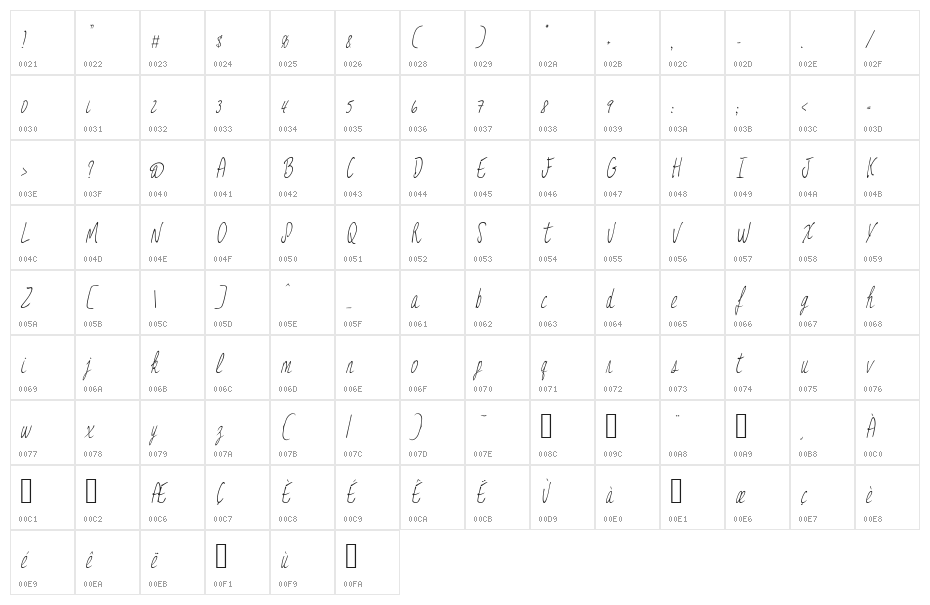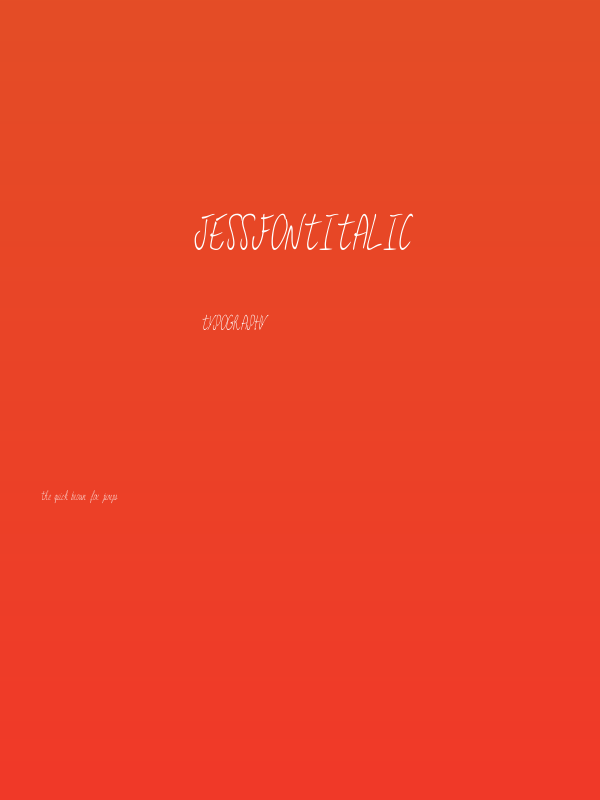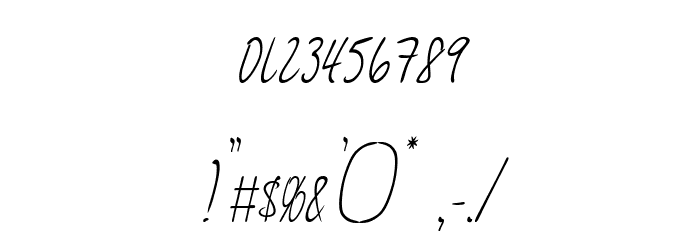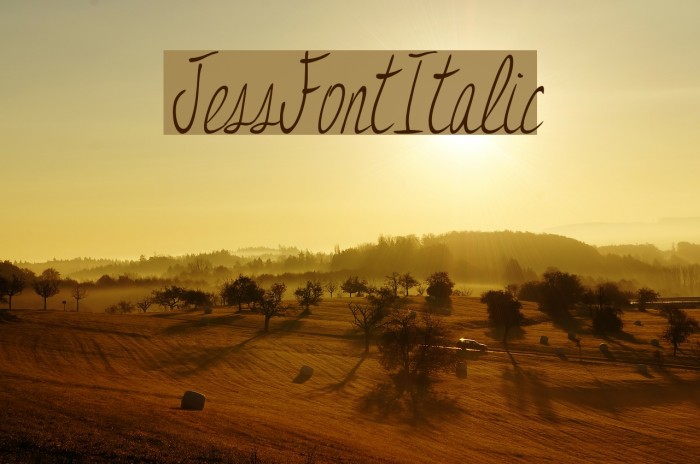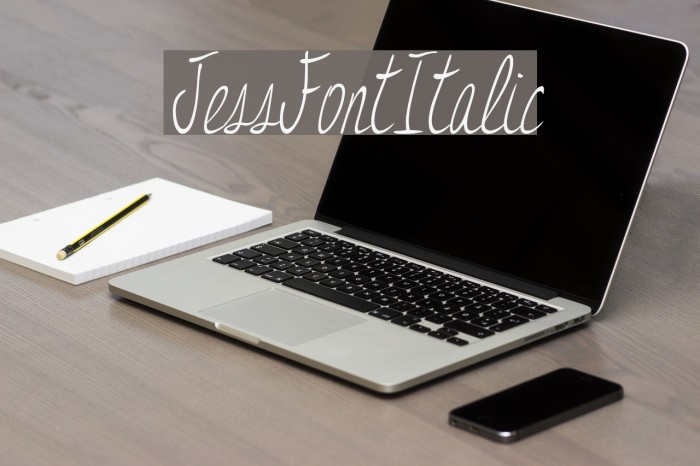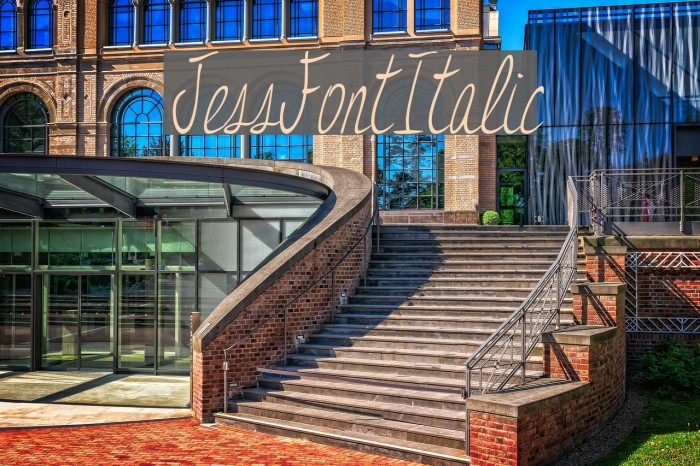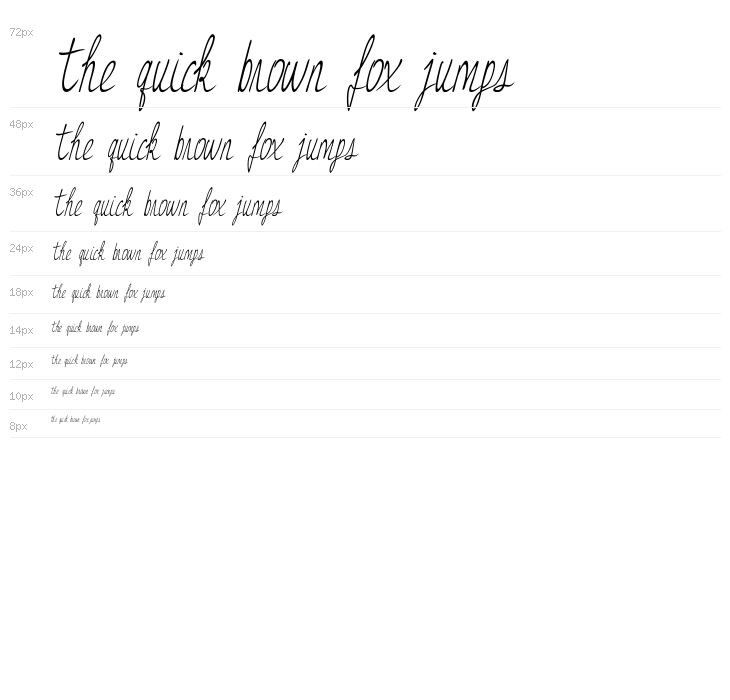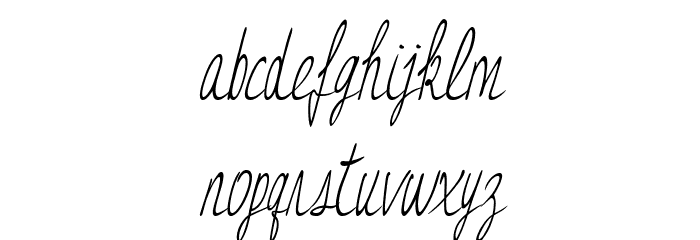
JessFontItalic Font
JessFontItalic Description
This font features a fluid and elegant script style, characterized by its smooth, flowing lines and slight slant, giving it an italic appearance. The uppercase letters are tall and graceful, while the lowercase letters maintain a consistent rhythm, enhancing readability. The numerals are designed to match the cursive style, adding a cohesive look to the overall typeface. Special characters are thoughtfully integrated, maintaining the font's aesthetic appeal. The font's delicate strokes and artistic flair make it suitable for creative and expressive projects.
| Proposed Projects | Ideal for wedding invitations, greeting cards, personal branding, and artistic projects. |